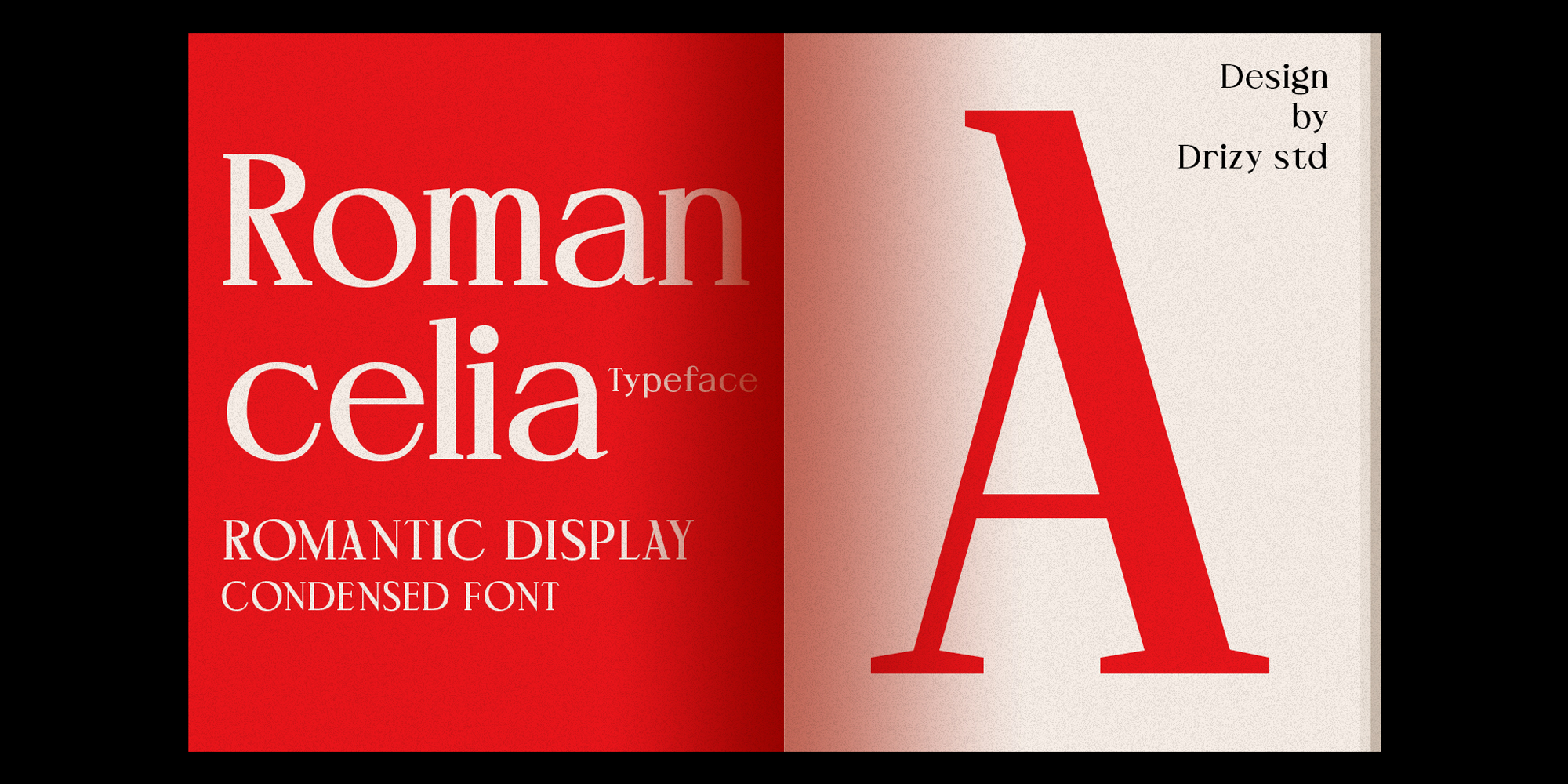
Romancelia Font is perfect for romantic wedding invitations, luxury love letters, intimate café branding, romantic novel covers, Valentine's Day campaigns, elegant anniversary materials, passionate greeting cards, romantic jewelry packaging, and enchanting social media content. This captivating typeface brings passionate romance and timeless love to both digital and print design applications.
Romancelia Font is exciting because it captures the essence of eternal romance and passionate devotion, making it an exceptional choice for designers who want to evoke deep emotional connection with authentic romantic expression. Its graceful letterforms and flowing curves provide the perfect combination of passionate elegance and heartfelt functionality, ensuring your projects communicate love, intimacy, and romantic sophistication that resonates with hearts seeking genuine emotional connection and timeless romance.
The Romancelia Font family includes romantic weight variations and passionate elements, featuring light, regular, and bold weights with complementary italic styles, decorative flourishes, and romantic ligatures. Each style maintains consistent amorous aesthetics while offering flexibility for different romantic applications, allowing designers to create enchanting brand systems that reflect passionate love and emotional sophistication.
Whether you're designing for romantic brands, wedding industry, or intimate businesses, Romancelia Font Free Download delivers authentic romantic appeal and passionate sophistication that connects with audiences seeking genuine love experiences. This premium typeface offers designers the emotional depth and romantic elegance needed to create designs that communicate heartfelt passion, intimate connection, and romantic excellence effectively. The font's passionate character makes it perfect for romantic branding, love-themed materials, and intimate applications where authentic romance is essential. Download Romancelia Font today and enchant your creative projects with genuine romantic sophistication and passionate typography excellence that defines timeless love.